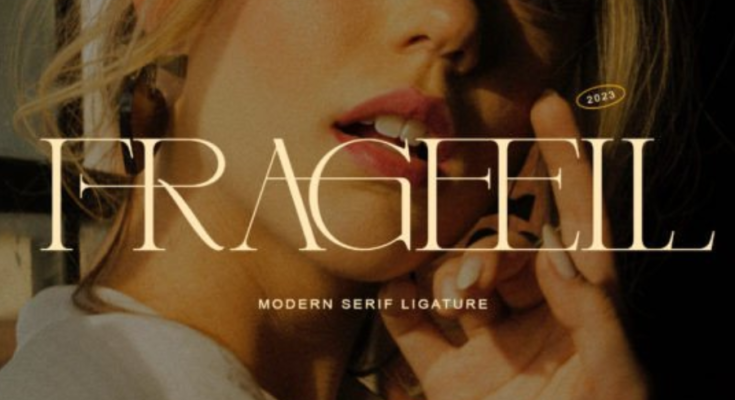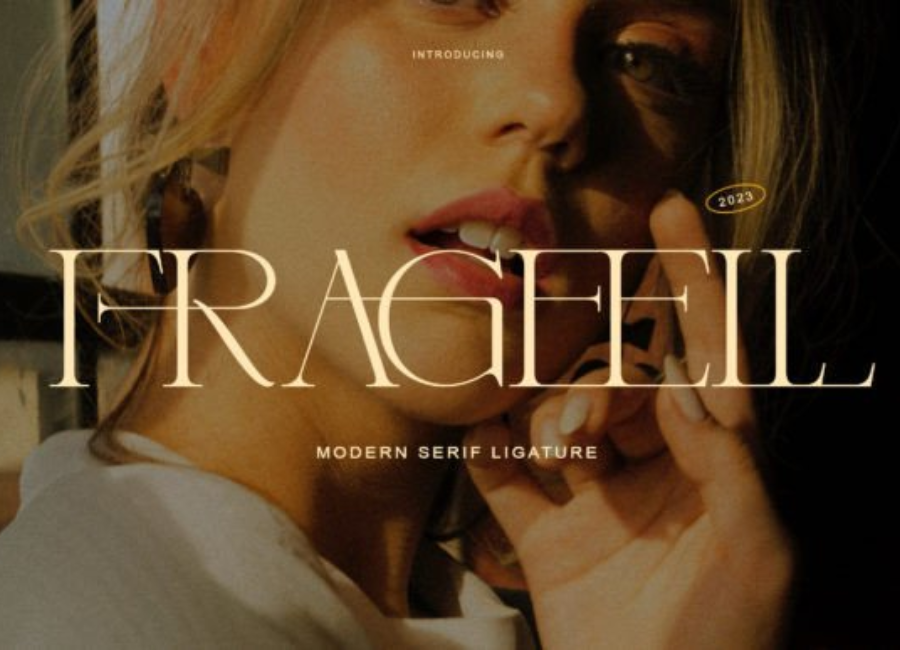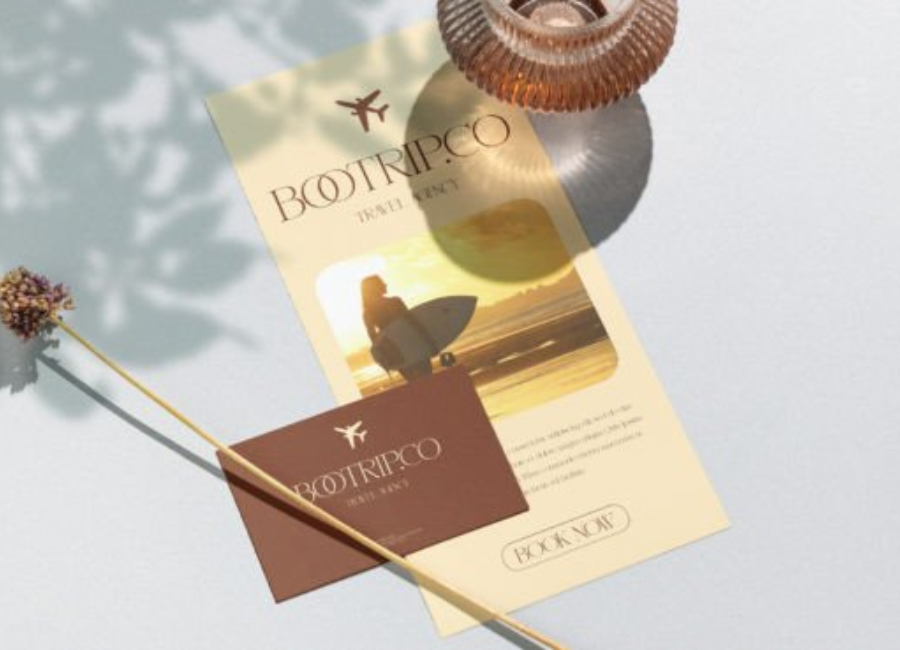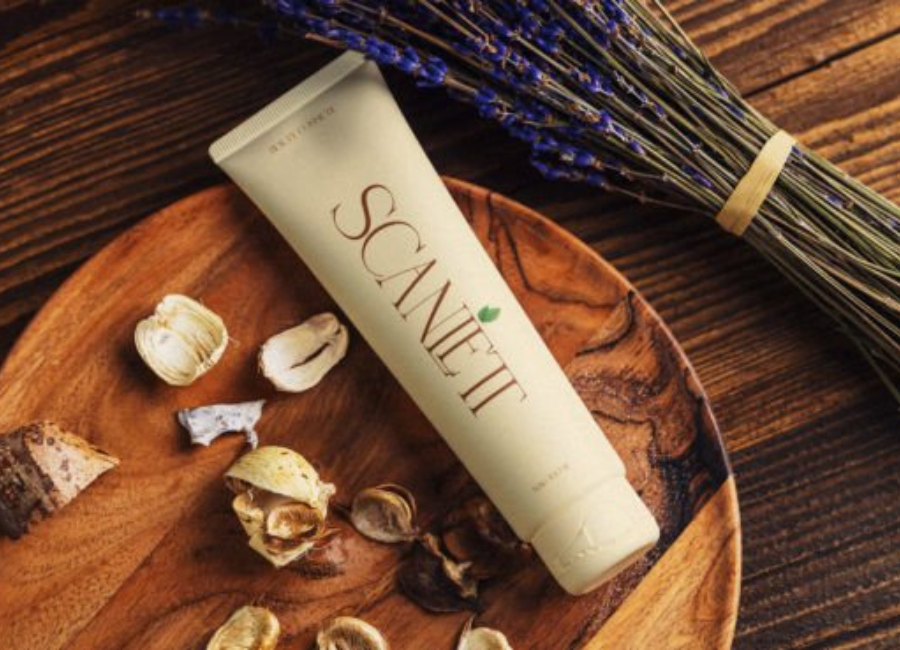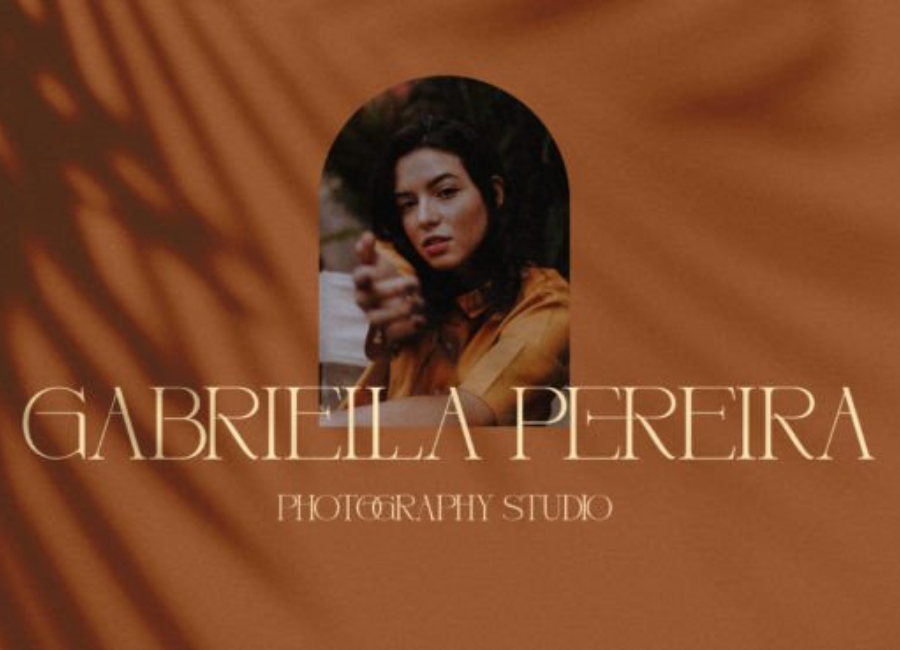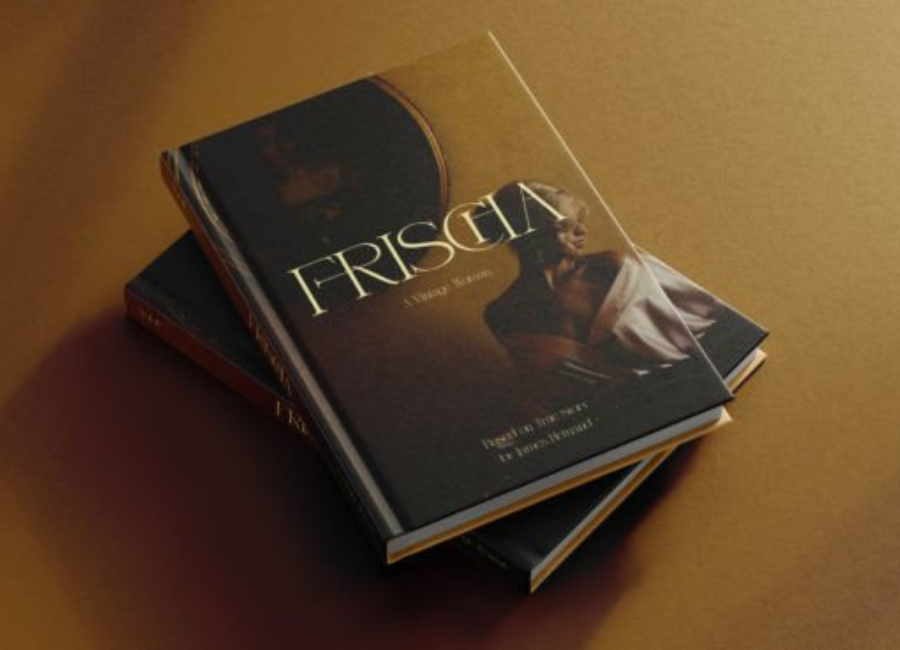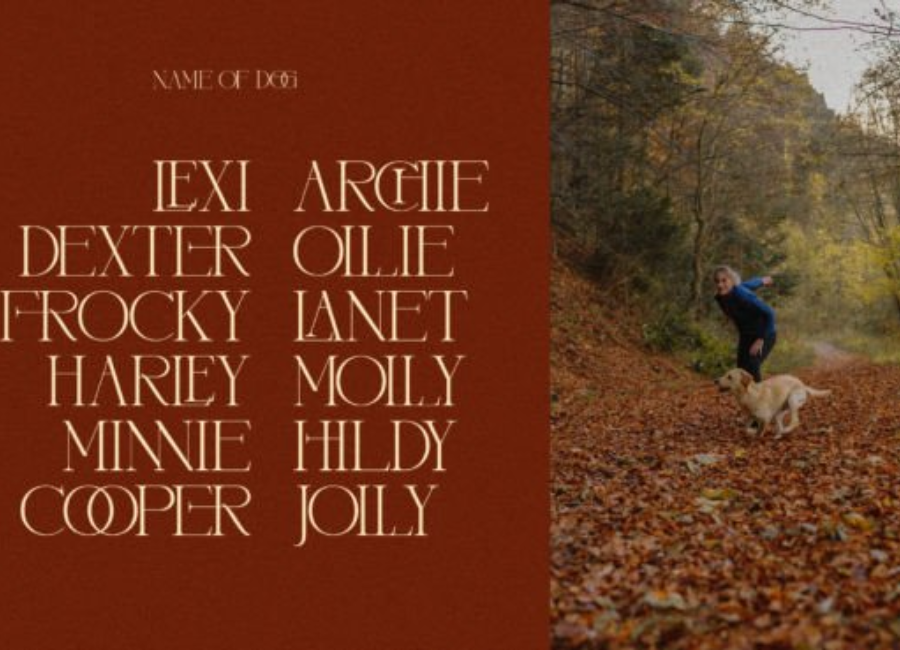
Frageell Font – A Modern, Playful Typeface Designed for Expressive Creativity
Typography plays a powerful role in shaping the tone and personality of a design. Whether you’re crafting branding materials, social media content, children’s books, or lifestyle packaging, the right typeface can elevate your message and create emotional impact. Frageell Font is one of those unique typefaces that brings fun, creativity, and modern charm into every project. With its soft curves, friendly personality, and expressive style, Frageell has become a favorite among designers seeking a versatile and visually engaging font.